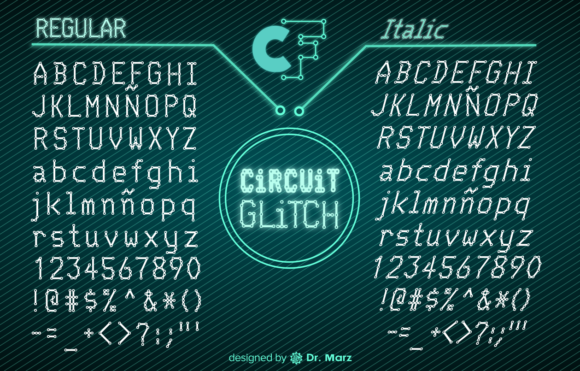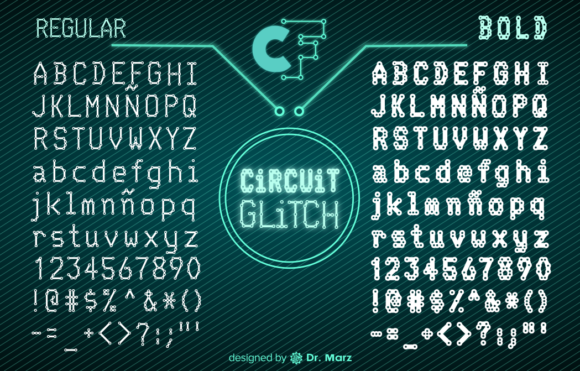
The Circuit Glitch Font: A Playful, Eclectic Addition to Your Design Arsenal
I’ll never forget the design project that led me to discover the Circuit Glitch font. I was working on a branding project for a tech startup, and I needed a font that would capture the essence of innovation and playfulness. After hours of scouring font libraries and testing various options, I stumbled upon Circuit Glitch. Its unique blend of abstract shapes and eclectic charm instantly resonated with me, and I knew I had found the perfect fit.
An Honest Review: The Good and the Quirks
What I Love About Circuit Glitch
- ✨ Unique aesthetic: Circuit Glitch celebrates abstract shapes in all their eclectic beauty, making it a standout in any design project.
- ✅ Versatility: This font can be used in a wide range of contexts, from tech and gaming to art and design.
- 💡 Inspires creativity: The font’s playful, glitchy vibe can spark new ideas and add a fresh perspective to your designs.
While Circuit Glitch is an amazing font, it’s not without its quirks. Here are a few things to keep in mind:
- 🤔 Legibility at small sizes: As with many decorative fonts, Circuit Glitch can be tricky to read at very small sizes. Use it at larger sizes or for headlines and titles.
- ⚠️ Limited use in formal contexts: Due to its playful, glitchy nature, Circuit Glitch might not be the best fit for formal or professional projects that require a more traditional look.
Circuit Glitch was designed with the goal of capturing the beauty of abstract shapes and the playfulness of glitch art. The designer, a self-proclaimed tech enthusiast and art lover, drew inspiration from the world of circuit boards, code snippets, and digital errors.
A: Absolutely! Circuit Glitch is a versatile font that can be used for branding, logos, and other visual identities. Its unique aesthetic makes it perfect for standing out in a crowded market.
Q: Is Circuit Glitch suitable for body text?
A: While Circuit Glitch can be used for body text, it’s recommended to use it at larger sizes or for short paragraphs. Its decorative nature makes it more suitable for headlines, titles, and emphasis text.